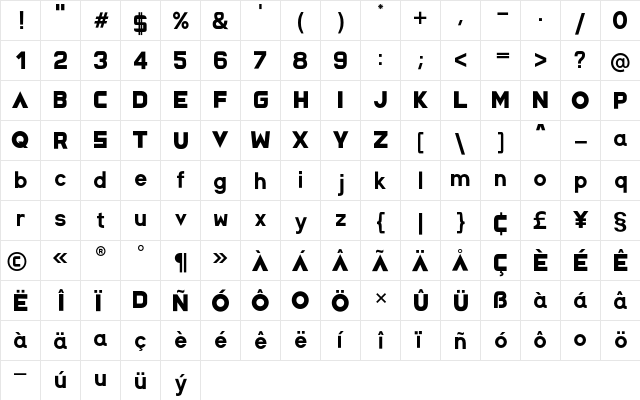
Space Capitan Regular
| Designer | Wojtek Yellow Zolty |
Design Context for Space Capitan Typeface
Space Capitan offers clean, dependable letterforms without strong stylistic allegiance, making it a practical choice for designers who need flexibility.